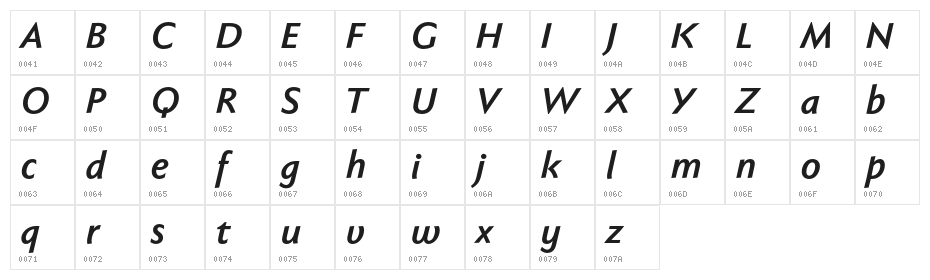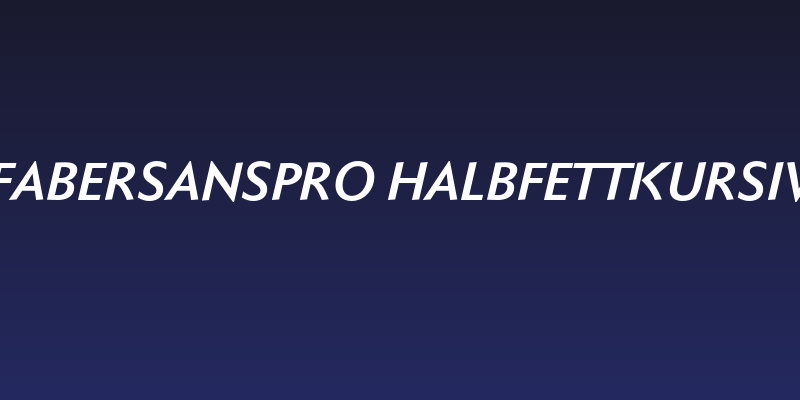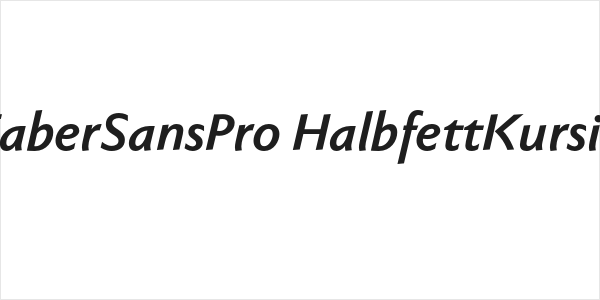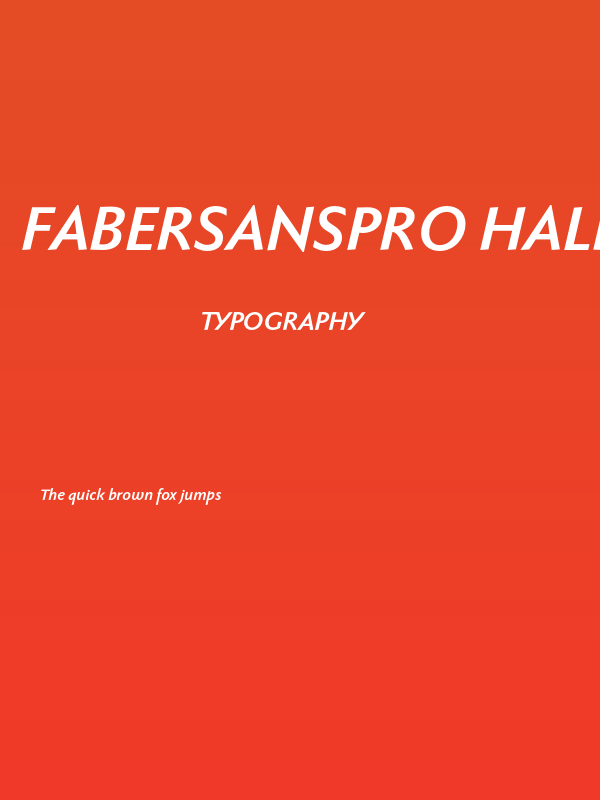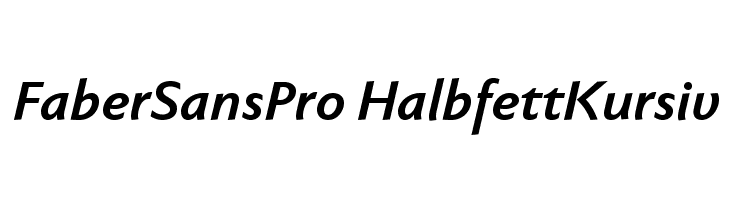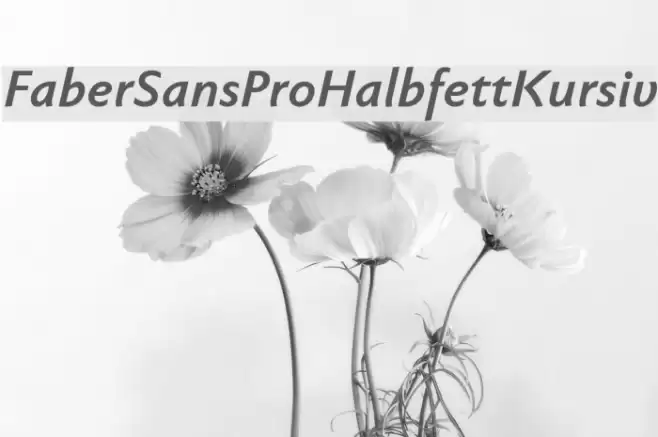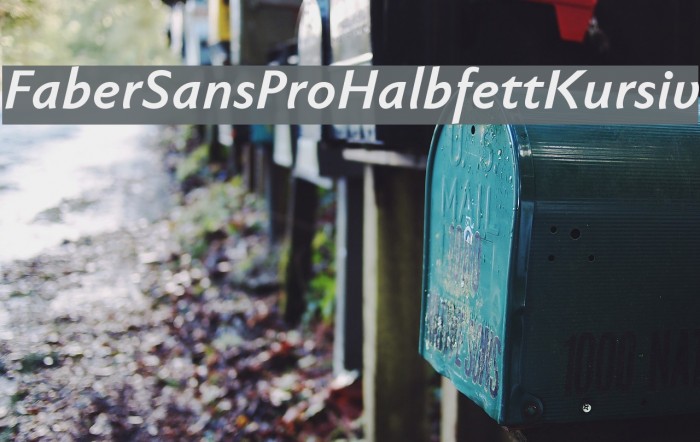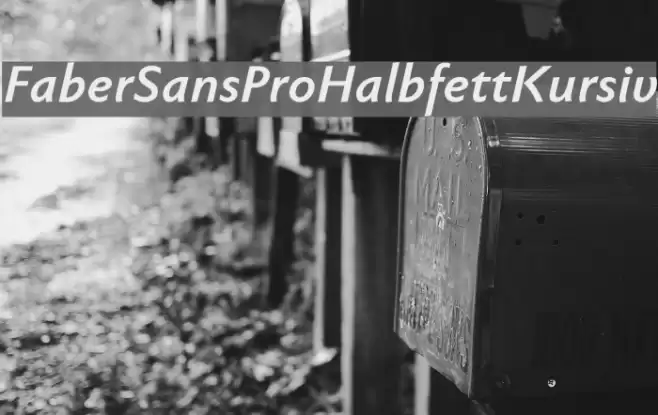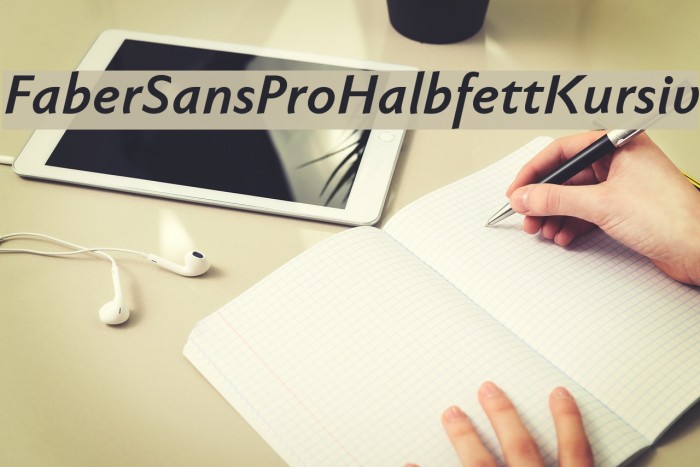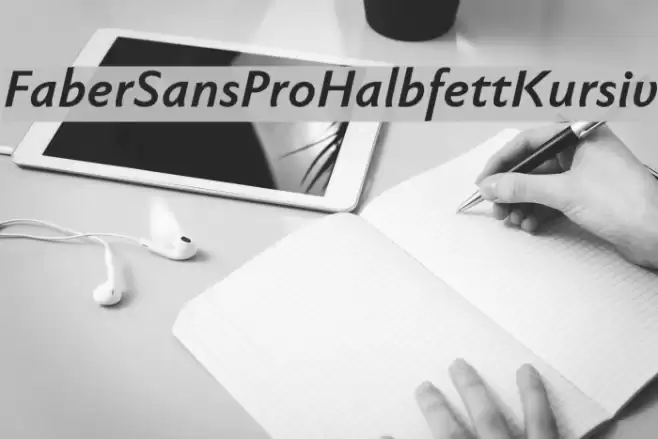
FaberSansPro-HalbfettKursiv Font
FaberSansPro-HalbfettKursiv Description
This font exhibits a clean and modern sans-serif style with a slight italic slant, giving it a dynamic and forward-moving appearance. The characters are well-balanced with a medium weight, providing a sense of stability and readability. The strokes are smooth and consistent, with a moderate contrast that enhances legibility without being too stark. The overall design is sleek and professional, making it suitable for a variety of applications. The character spacing is normal, ensuring that the text is easy to read while maintaining a cohesive look.
| Use Case | Headlines, Body text, Logos |
| Proposed Projects | Ideal for branding, advertising, web design, and editorial layouts. |